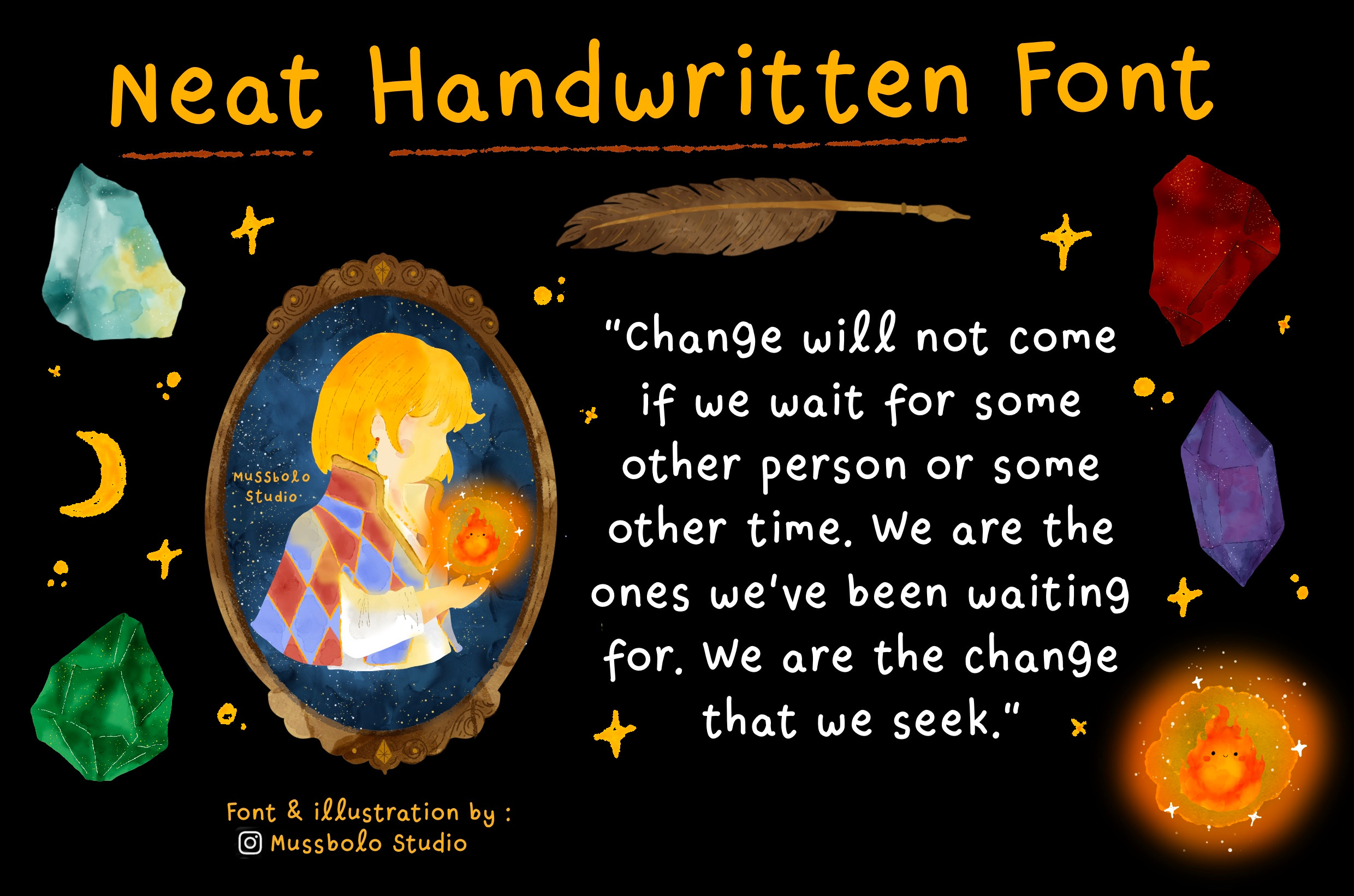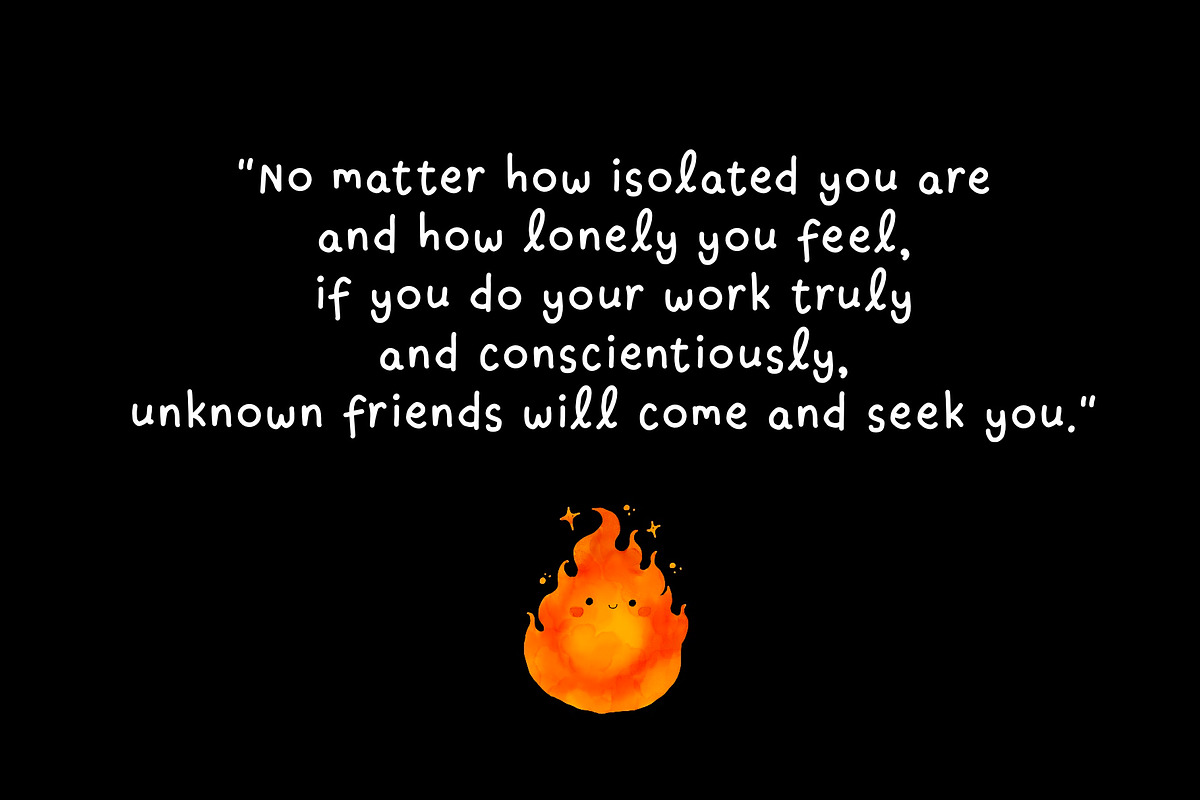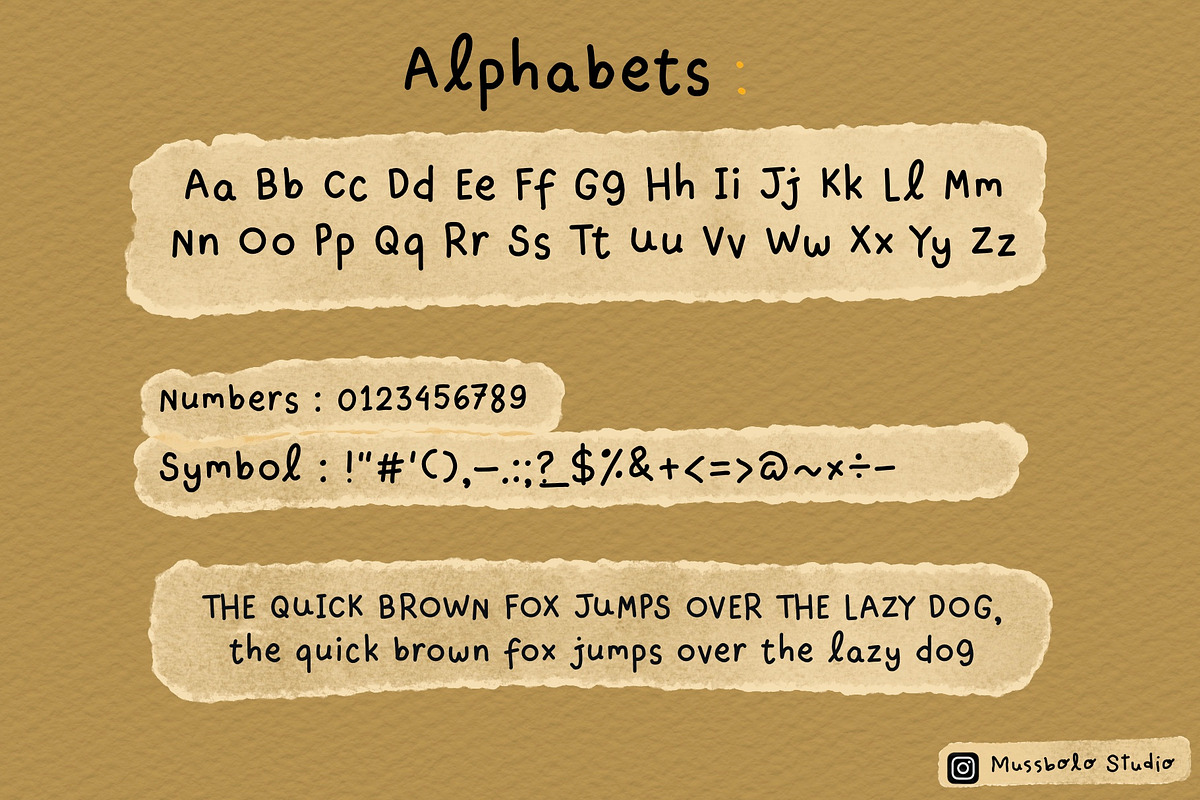
Neat Handwritten Font - Journaling
Neat Handwriting Font is a carefully crafted handwritten typeface inspired by tidy everyday notes — simple, honest, and beautifully readable. This font brings a soft human touch while staying clean and polished, making it versatile for both minimal and expressive designs.
- Social media content/vlog/feed
- Branding & logo
- Packaging
- Digital planners
- Quotes & aesthetic posts
- Invitations
- Creative projects